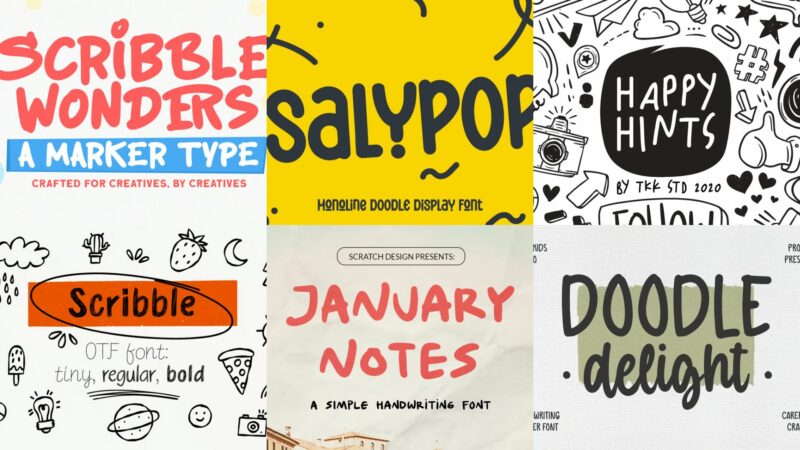
As designers, we’re constantly searching for fonts that can inject authentic personality and handcrafted charm into our projects. And in 2026, a really great doodle font may be just what you need.
Doodle fonts are exactly what they sound like – typefaces that capture the spontaneous, imperfect nature of hand-drawn lettering. They bring that coveted “sketched in a notebook” quality that feels genuine, approachable, and undeniably human in our increasingly digital world.
The Most Creative Doodle Fonts Right Now
Not all doodle fonts deliver the same sketchy vibe. I’ve compiled my favorite doodle fonts that truly capture that authentic hand-drawn aesthetic. Here they are:
Miggoe
Miggoe is a versatile and playful font that combines sans-serif, script, and handwritten styles. It features a wide range of doodles and fun symbols, making it perfect for projects that require a whimsical and lighthearted touch. This font is ideal for children’s books, greeting cards, or any design that aims to evoke a sense of joy and creativity.
Salypop
Salypop is a charming monoline doodle display font that strikes a balance between playfulness and elegance. Its handwritten style and decorative elements make it perfect for creating eye-catching headlines or logos. This font would be particularly effective in branding for creative businesses or in designs targeting a youthful audience.
Happy Hints
Happy Hints is a delightful kids’ doodle handwriting font that captures the essence of childlike wonder. Its sketchy, sans-serif style makes it perfect for children’s products, educational materials, or any design that aims to convey a sense of fun and innocence. The font’s playful nature can bring a touch of whimsy to various design projects.
Doodle
This Doodle font combines elements of graffiti and children’s handwriting to create a unique and expressive typeface. Its decorative and script-like qualities make it suitable for a wide range of creative projects. The font could be particularly effective in designs targeting youth culture or in projects that aim to convey a sense of urban energy and playfulness.
Doodly TrueType
Doodly TrueType is a handwritten script font that captures the essence of spontaneous doodling. Its casual and natural appearance makes it perfect for creating a personal, approachable feel in designs. This font would be ideal for blogs, social media graphics, or any project that aims to convey a sense of authenticity and creativity.
Pretty Ordinary
Pretty Ordinary is a bold display font with added doodle elements, blending script and handwritten styles. Its striking appearance makes it excellent for headlines, posters, or brand identities that want to make a statement. The font’s combination of boldness and playful doodles creates a unique and memorable visual impact.
Doodle Delight
Doodle Delight is a rounded marker script font that exudes a sense of joy and spontaneity. Its fluid, handwritten style makes it perfect for creating friendly and approachable designs. This font would be ideal for packaging, branding, or any project that aims to convey a sense of warmth and creativity.
Happy Doodle Fonts
Happy Doodle Fonts is a collection of cute and playful script fonts that capture the essence of joyful handwriting. These fonts are perfect for creating designs with a lighthearted and cheerful atmosphere. They would be particularly effective in children’s products, greeting cards, or any project that aims to evoke a sense of happiness and fun.
Scribble Font
This Scribble Font captures the essence of spontaneous, energetic handwriting. Its raw and authentic appearance makes it perfect for creating designs with a sense of urgency or excitement. The font would be ideal for posters, album covers, or any project that aims to convey a rebellious or youthful spirit.
Fifth Grader
Fifth Grader is an all-caps funny doodle font that captures the essence of childlike handwriting. Its cartoonish and humorous style makes it perfect for creating designs that aim to be lighthearted and approachable. This font would be particularly effective in children’s products, educational materials, or any project targeting a young audience.
As we move further into 2026, the demand for authentic, human-centered design continues to grow – and doodle fonts perfectly meet this moment. Whether you’re designing for a craft brewery, a children’s book, a cozy café, or a creative startup, the right doodle font can help your project feel immediately more approachable, creative, and genuine.